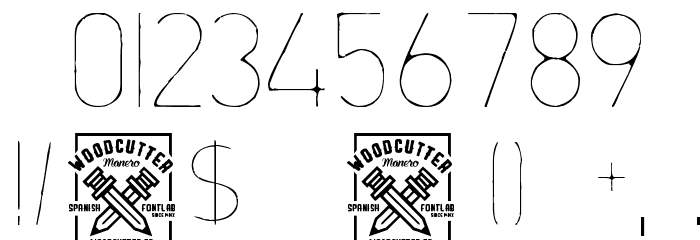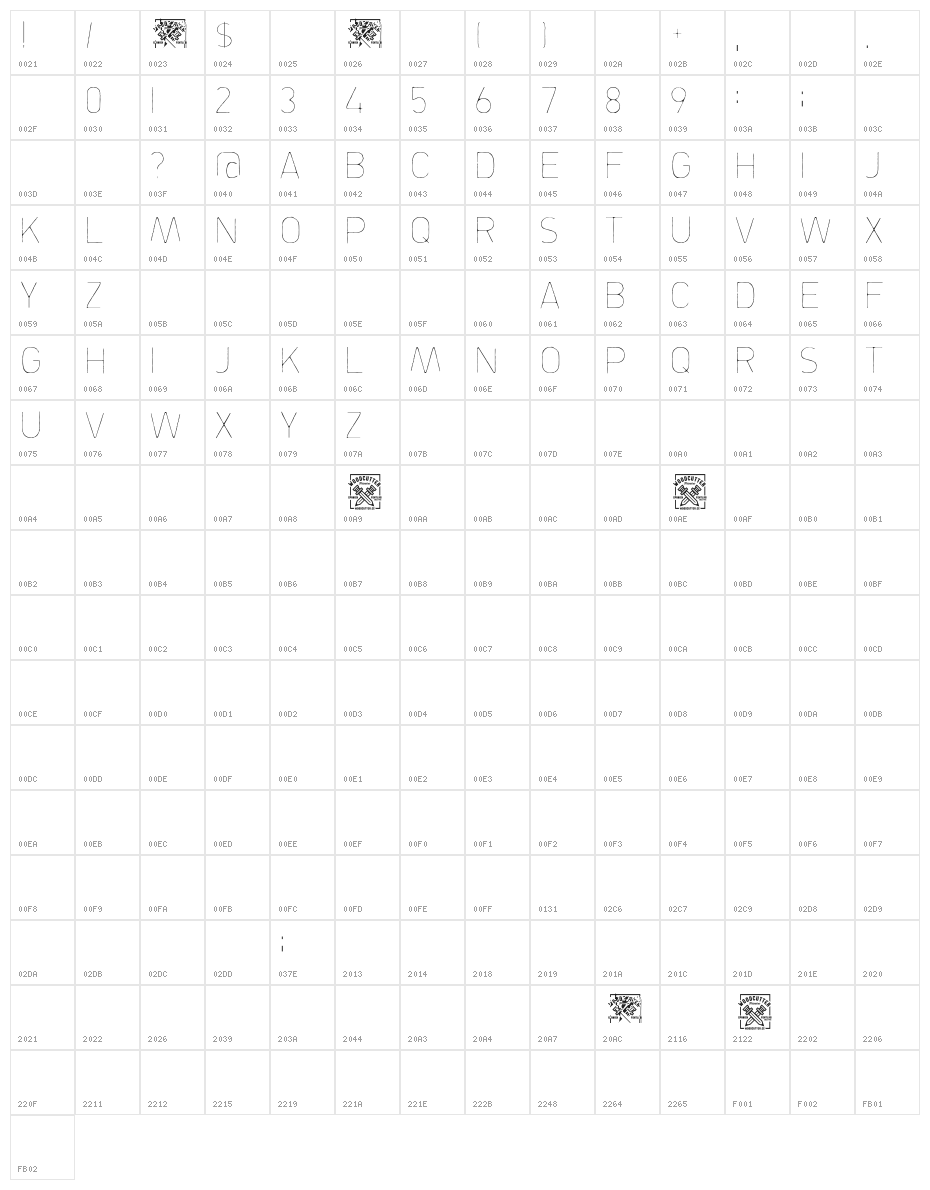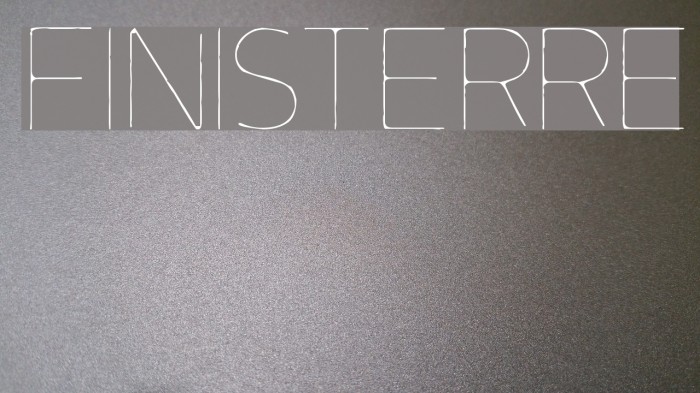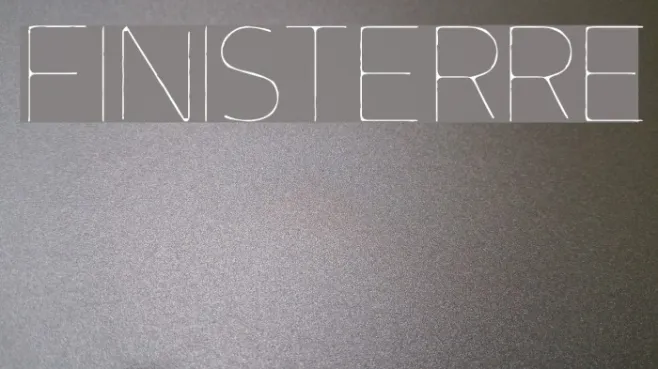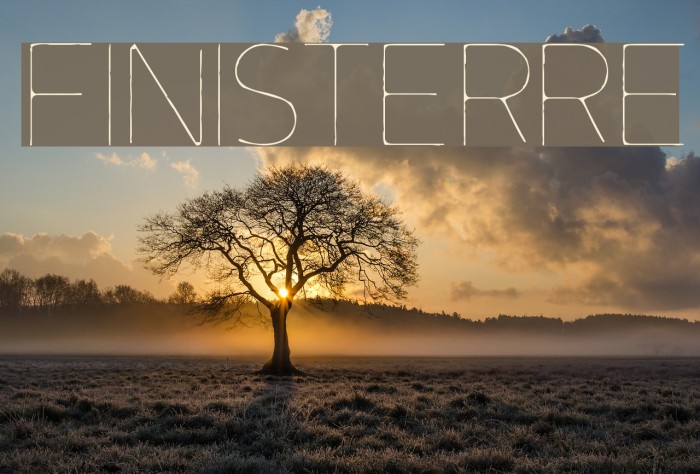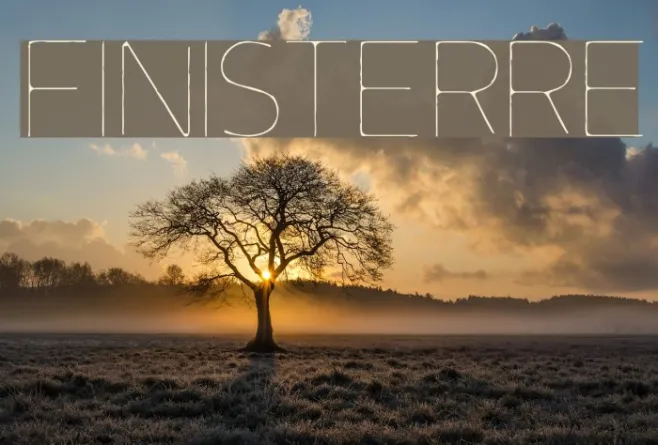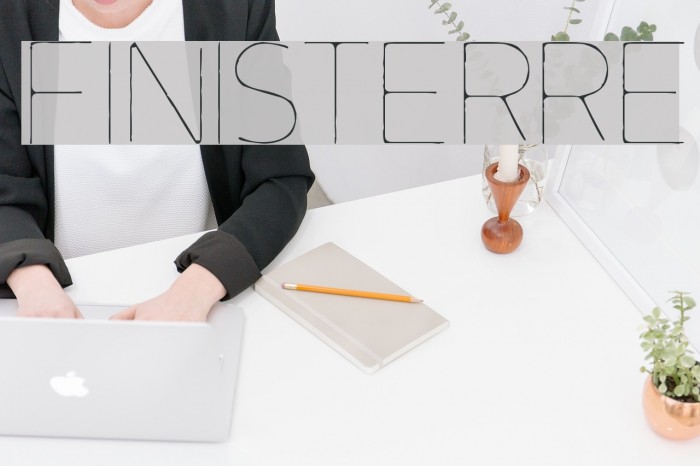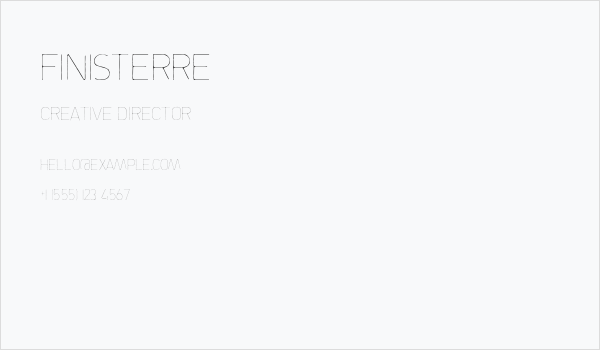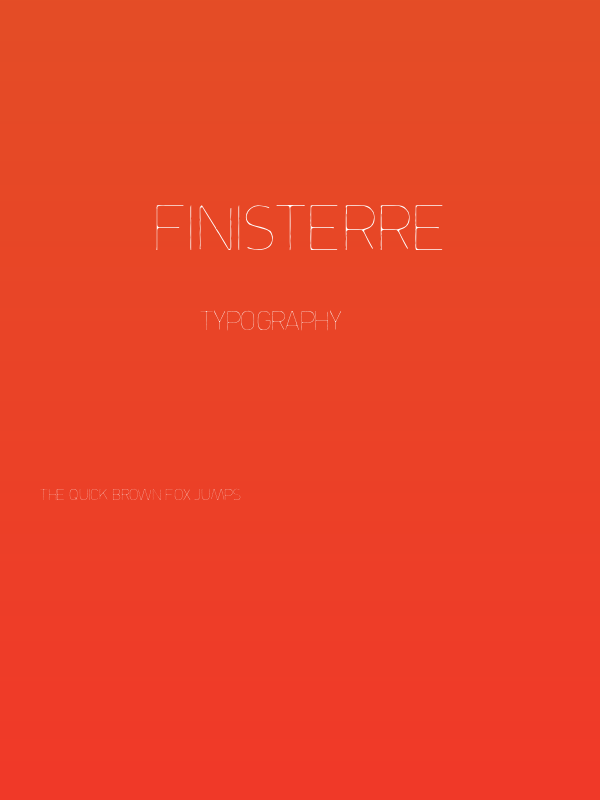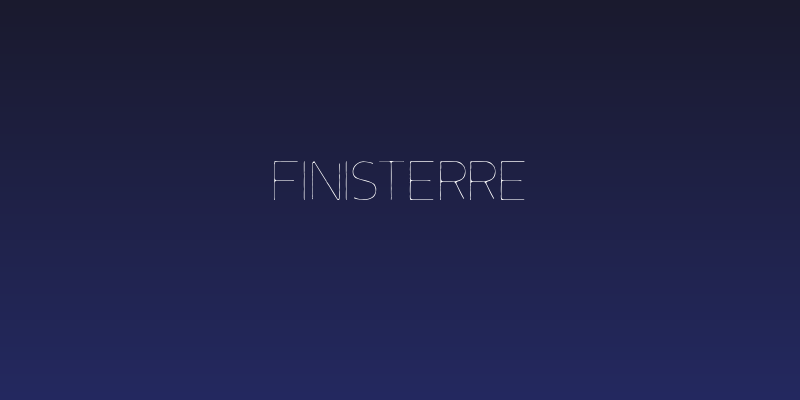
Finisterre Font
Finisterre Description
This font features a minimalist and geometric design with clean, straight lines and sharp angles. The uppercase and lowercase letters maintain a consistent height, creating a uniform appearance. The numerals are distinct and align well with the overall style, while the special characters complement the font's simplicity. The thin strokes and lack of embellishments give it a modern and sleek look, making it suitable for contemporary designs. The spacing between characters is balanced, ensuring readability without compromising the aesthetic appeal.
| Proposed Projects | Ideal for modern branding, minimalist posters, sleek website headers, and contemporary product packaging. |